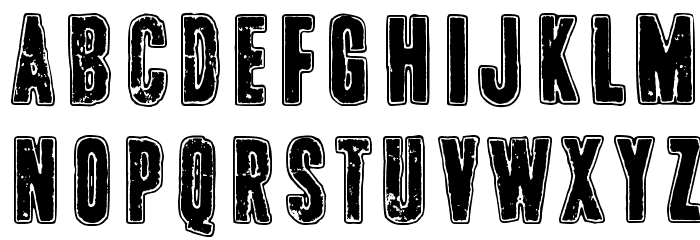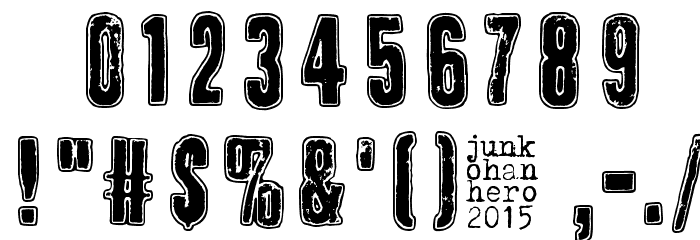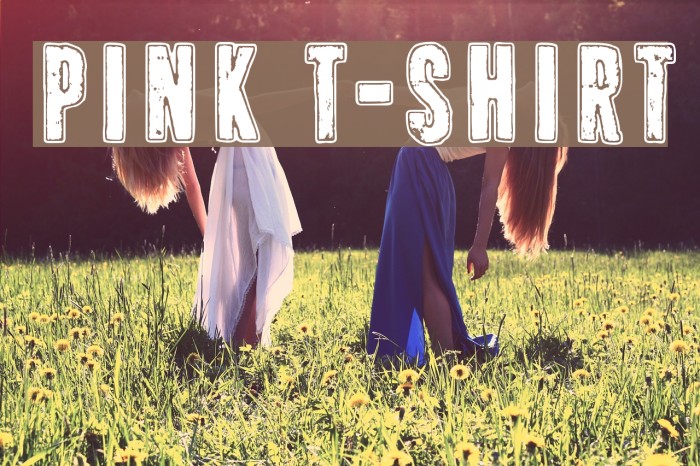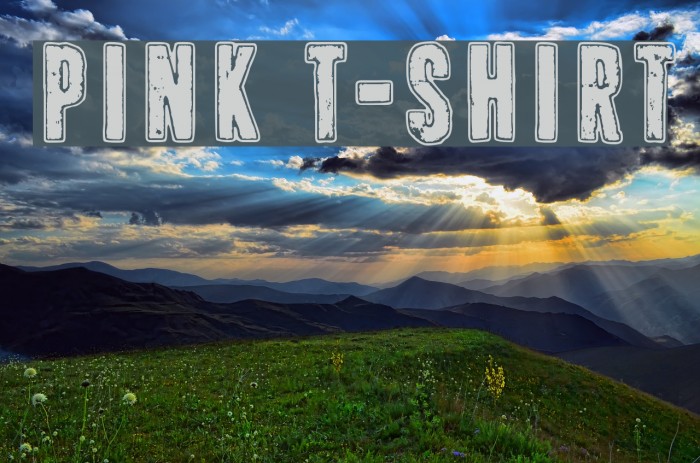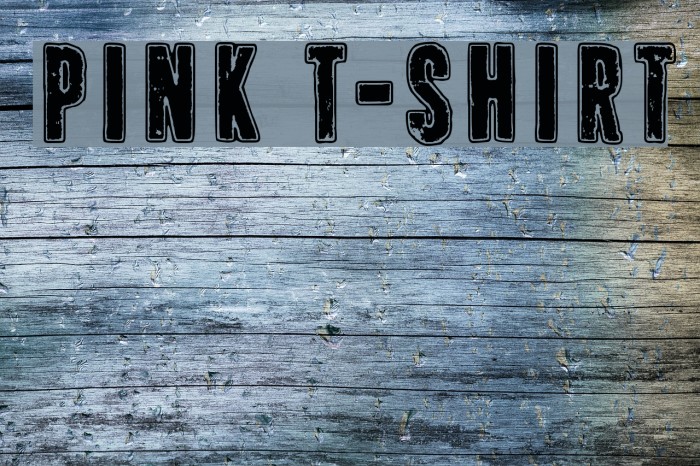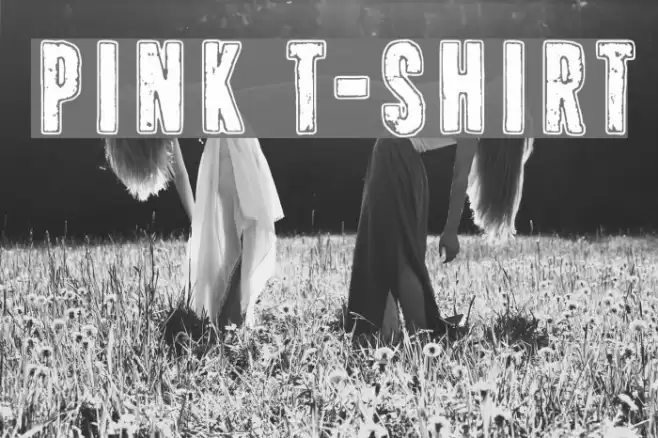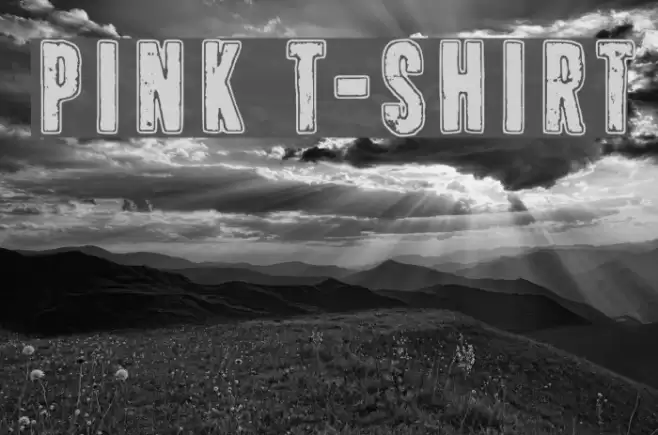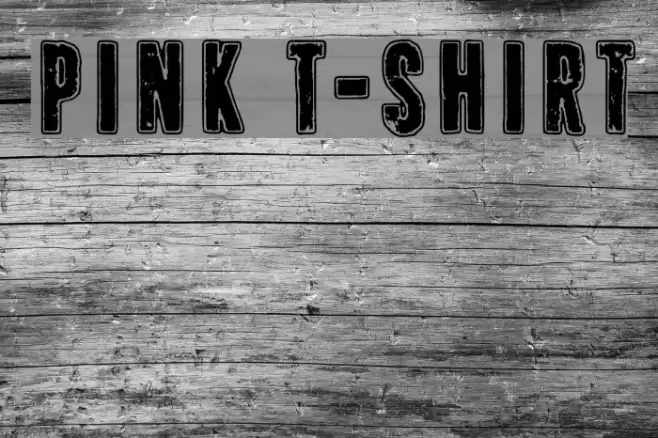
Pink T-shirt Font
This font features a bold, distressed style with a vintage, grunge aesthetic. Each character is heavily textured, giving the appearance of wear and tear, which adds a rugged and edgy feel. The uppercase and lowercase letters maintain a consistent weight, providing a uniform look across the typeface. The numbers and special characters follow the same distressed pattern, ensuring cohesion throughout. The font's boldness makes it stand out, while the rough texture adds character and depth, making it ideal for projects that require a strong, impactful visual presence.
A bold, distressed font with a vintage, grunge aesthetic.
- Proposed Projects: Ideal for posters, album covers, branding for edgy products, or any design needing a rugged, vintage feel.
- Overall Style: Vintage, Grunge